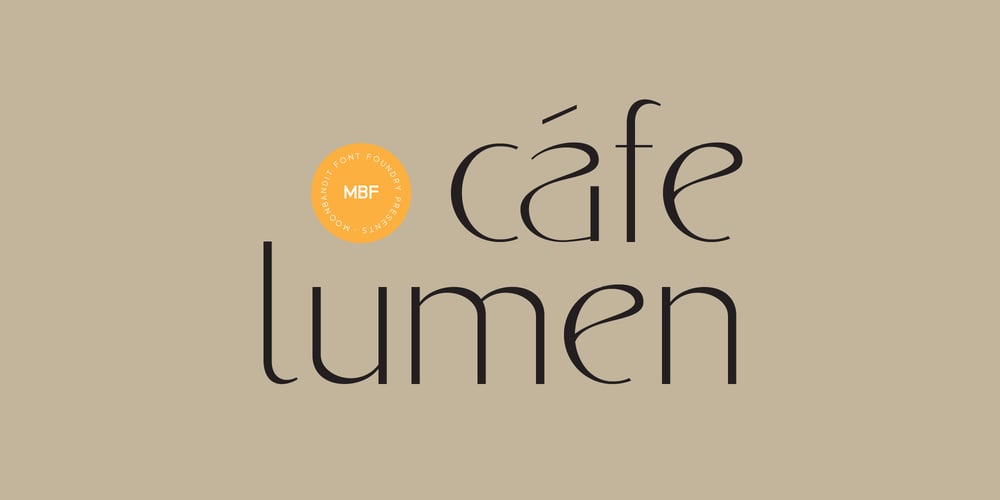
MBF Cafe Lumen
MBF Cafe Lumen font
MBF Cafe Lumen Font Family was designed by Bramaji Dipa Manggala and published by Moonbandit. MBF Cafe Lumen contains 1 styles and family package options. Moonbandit Font Foundry presents, Cafe Lumen. This elegant and unique typeface is inspired by the cool and relax atmosphere of an old vintage cafe luminated by an old dimmed lights and moon light. Cafe Lumen high contrast design fits well as a decorative and beautiful theme.